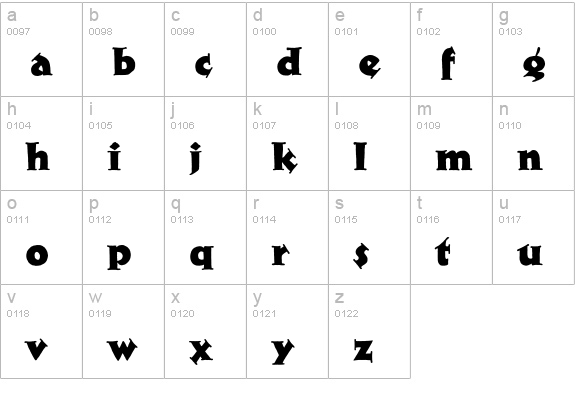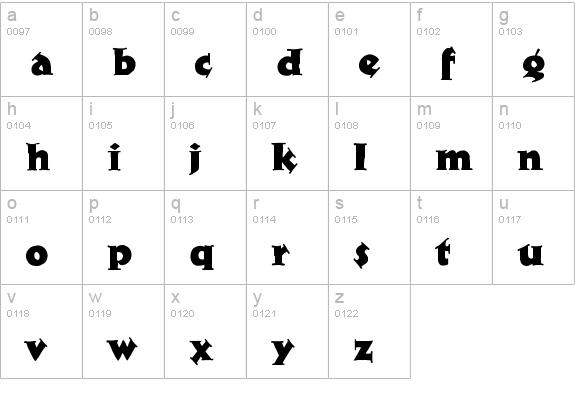
XyloPlain Font Details
Introducing XyloPlain font - a versatile typeface that effortlessly balances both professionalism and creativity. With its clean lines and modern aesthetic, XyloPlain is the perfect choice for a wide range of design projects, from branding to editorial layouts. This font features a timeless elegance that will elevate any design it is used in, making it a must-have for designers looking to add a touch of sophistication to their work. The versatility of XyloPlain allows it to seamlessly adapt to various design styles, ensuring that it remains a reliable choice for any project. What sets XyloPlain apart is not only its impeccable design, but also its accessibility. This font is available for free download at FontsMarket.com, allowing designers of all skill levels to easily access and incorporate it into their projects. So why wait? Elevate your designs with the timeless beauty of XyloPlain today.